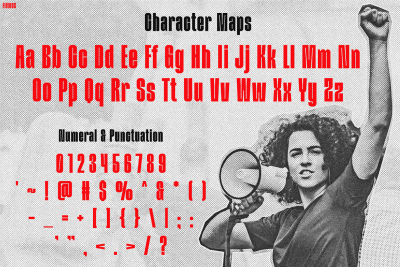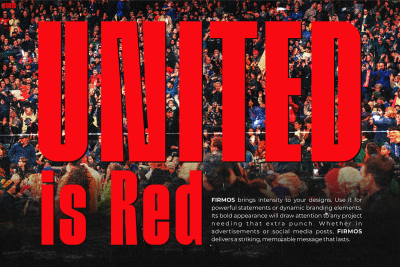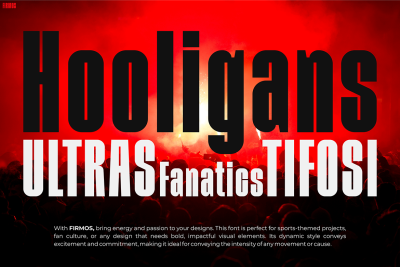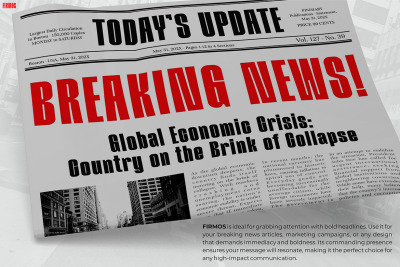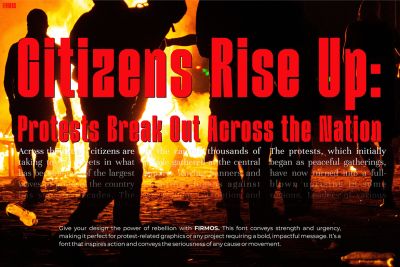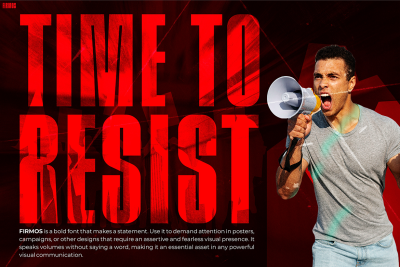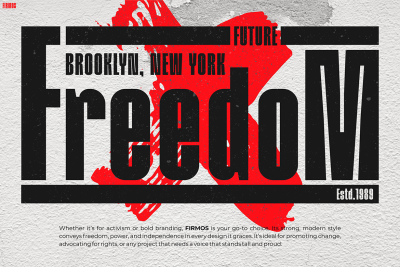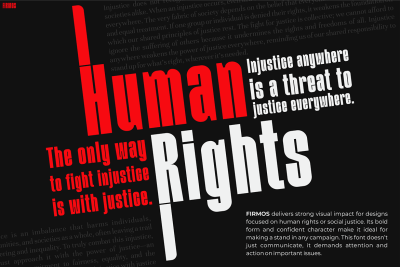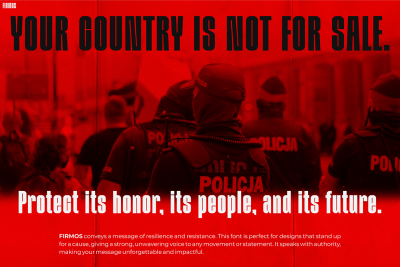
Retro Font FIRMOS is a bold and commanding typeface designed to make a statement. Inspired by vintage protest posters and industrial typography, this font embodies strength, determination, and a fearless visual presence. Moreover, its sharp edges and thick strokes create an eye-catching effect, making it perfect for high-impact designs. FIRMOS doesnโt just complement a layoutโit dominates it, demanding attention with its strong, structured form.
Whether used in branding, posters, or digital content, FIRMOS amplifies the message with confidence and intensity. In addition, its retro-inspired look gives off a timeless appeal while maintaining a modern edge. Thus, it becomes an essential choice for those who want to infuse their designs with power and nostalgia. The bold letterforms convey urgency and energy, making it ideal for designs that need to grab and hold the viewerโs attention instantly.
With its aggressive yet stylish design, FIRMOS is not just a fontโitโs a visual force. Furthermore, it is the perfect blend of retro aesthetics and contemporary impact, making it suitable for campaigns, streetwear branding, and any creative project that requires a fearless and assertive typographic approach.
Who Should Use Retro Font FIRMOS?
Retro Font FIRMOS is perfect for designers, marketers, and creatives looking to inject a bold, vintage aesthetic into their projects. Specifically, itโs particularly well-suited for:
- Campaign & Protest Materials โ The fontโs strong, high-impact design makes it ideal for posters, banners, and materials that need to convey power and urgency. Consequently, it helps messages stand out and make a lasting impression.
- Streetwear & Fashion Branding โ FIRMOS fits perfectly in edgy, urban, and high-energy branding. As a result, it becomes an excellent choice for clothing lines and modern apparel.
- Music & Entertainment Industry โ Whether for album covers, event posters, or promotional materials, FIRMOS brings a raw and dynamic energy that resonates with audiences. Therefore, it is a go-to font for visually intense designs.
- Movie Posters & Video Game Titles โ The bold, cinematic feel of FIRMOS enhances titles and promotional graphics. Hence, it provides a striking and unforgettable presence.
- Advertising & Marketing Campaigns โ Brands looking to stand out with bold, commanding visuals will benefit from the impactful design of FIRMOS. In particular, it works well in billboards, magazine ads, and social media graphics.
- Editorial & Magazine Layouts โ Whether for covers or feature headlines, FIRMOS creates an assertive and visually striking impact that captivates readers. Consequently, it enhances the overall aesthetic of any publication.
Retro Font FIRMOS isnโt just a typefaceโitโs a statement. It thrives in powerful, unapologetic designs that need to inspire action and create lasting impressions. Whether youโre crafting bold visuals for an activist campaign, a fashion brand, or a dynamic media project, FIRMOS delivers the strong, retro-inspired look that demands to be seen.